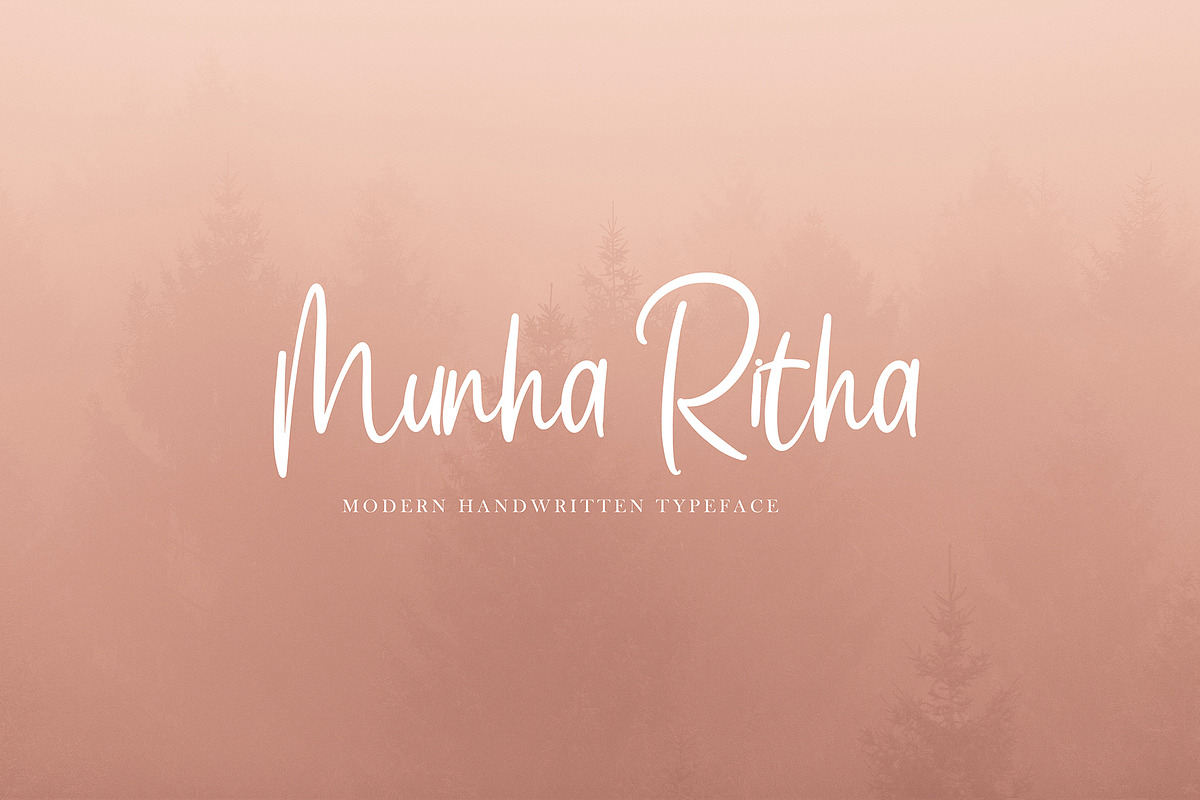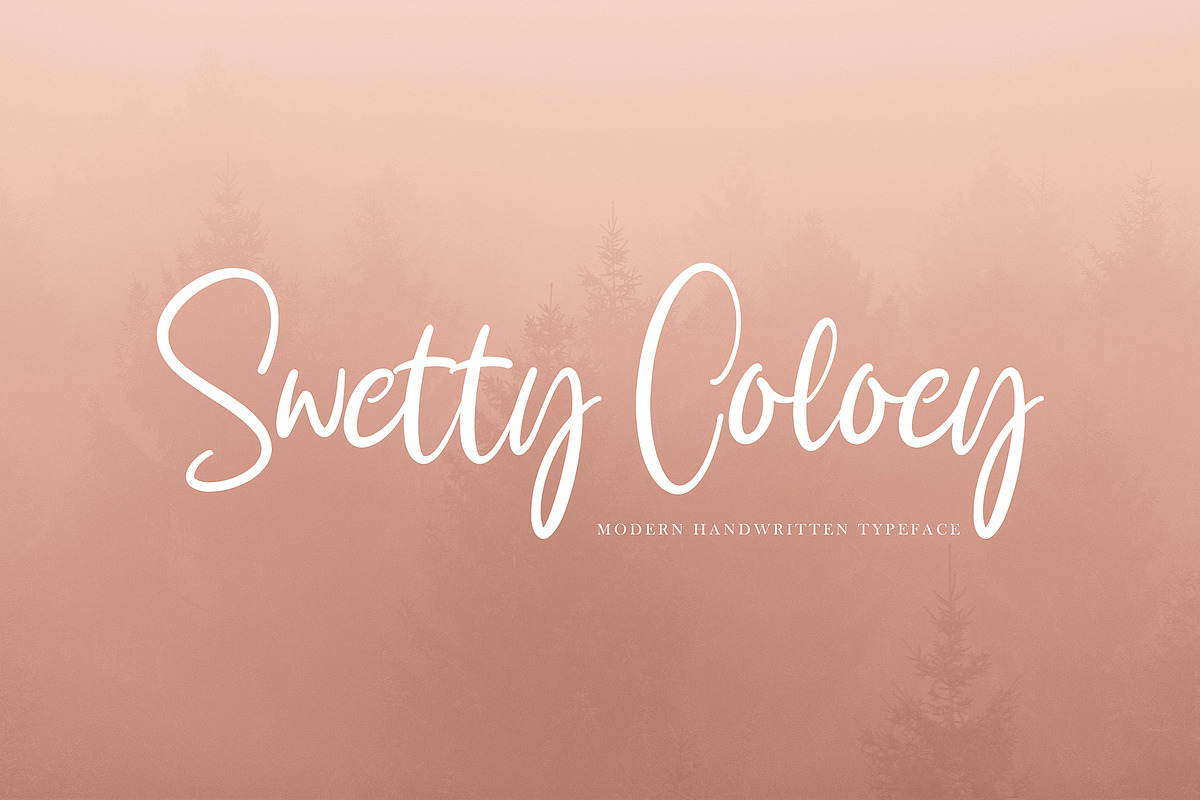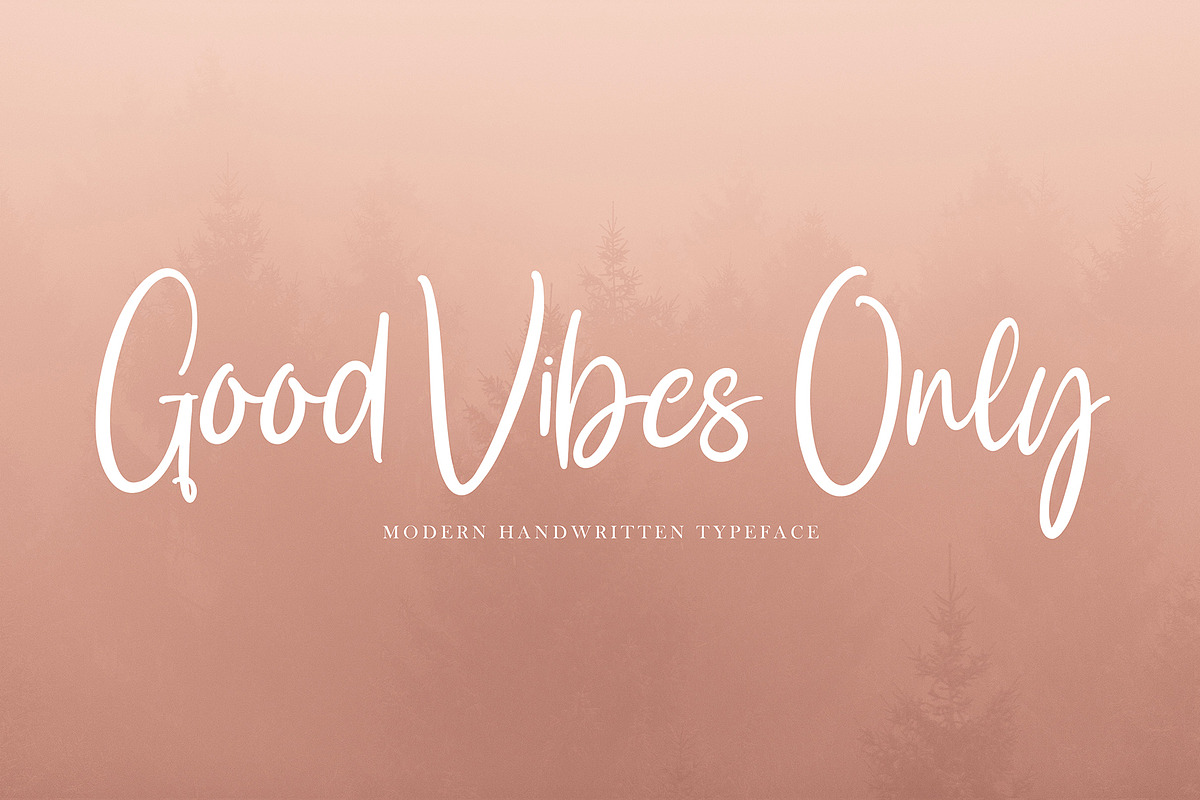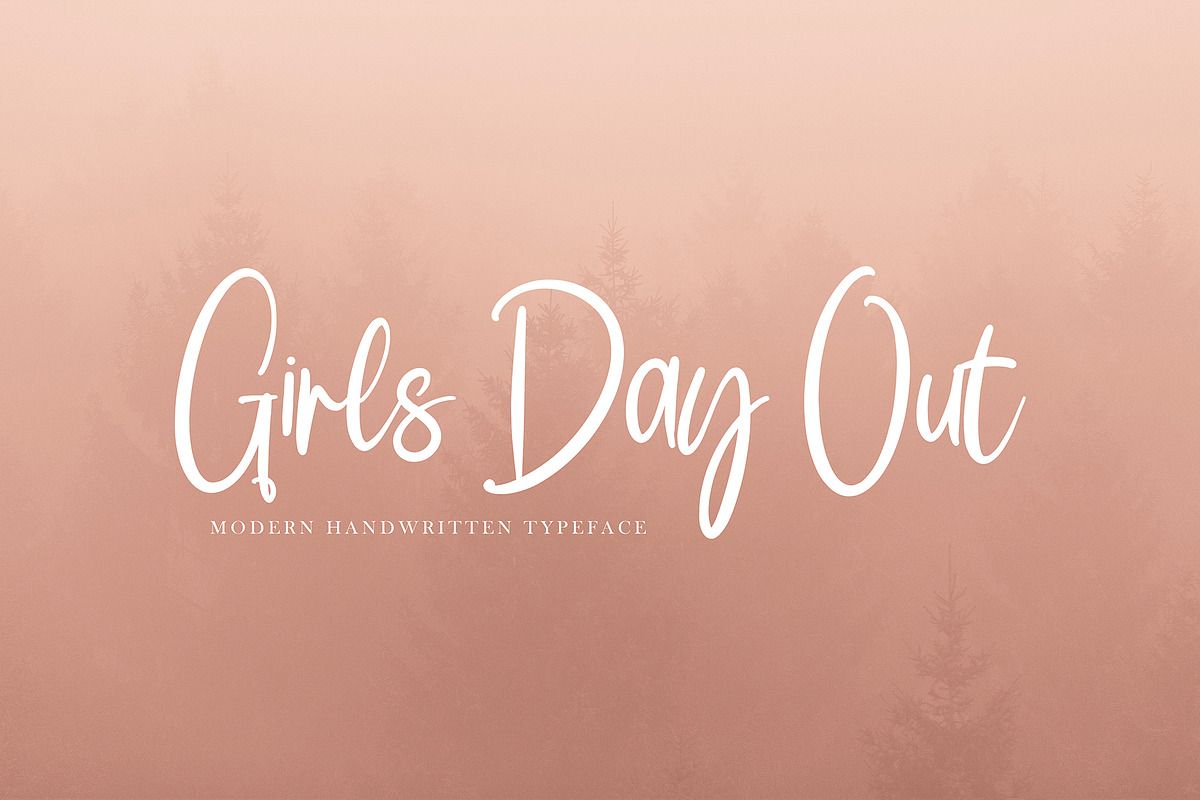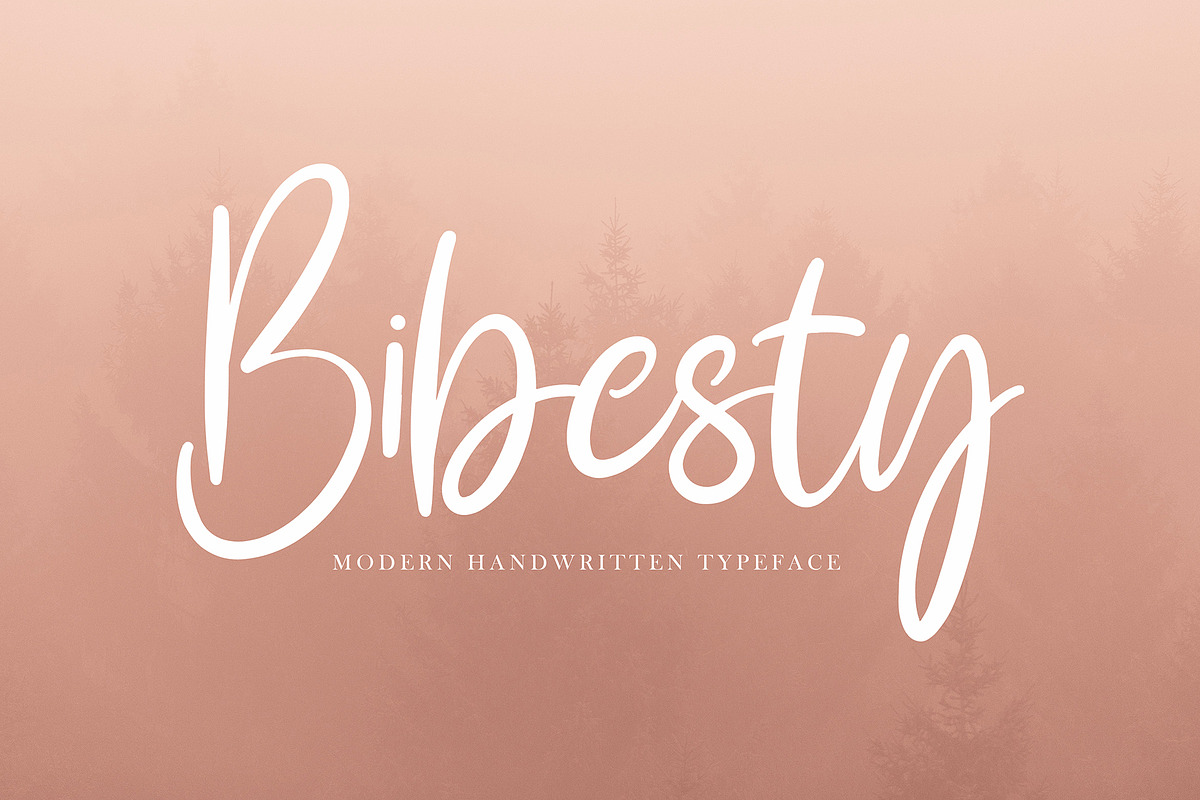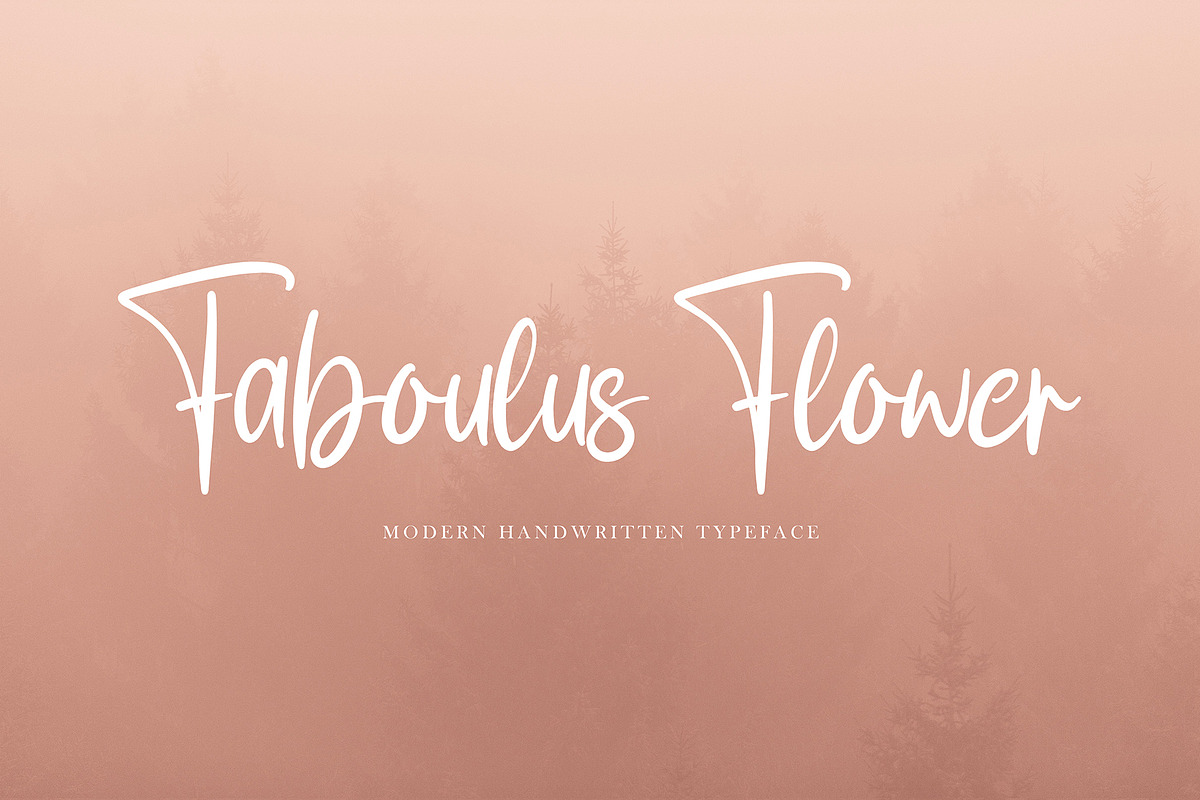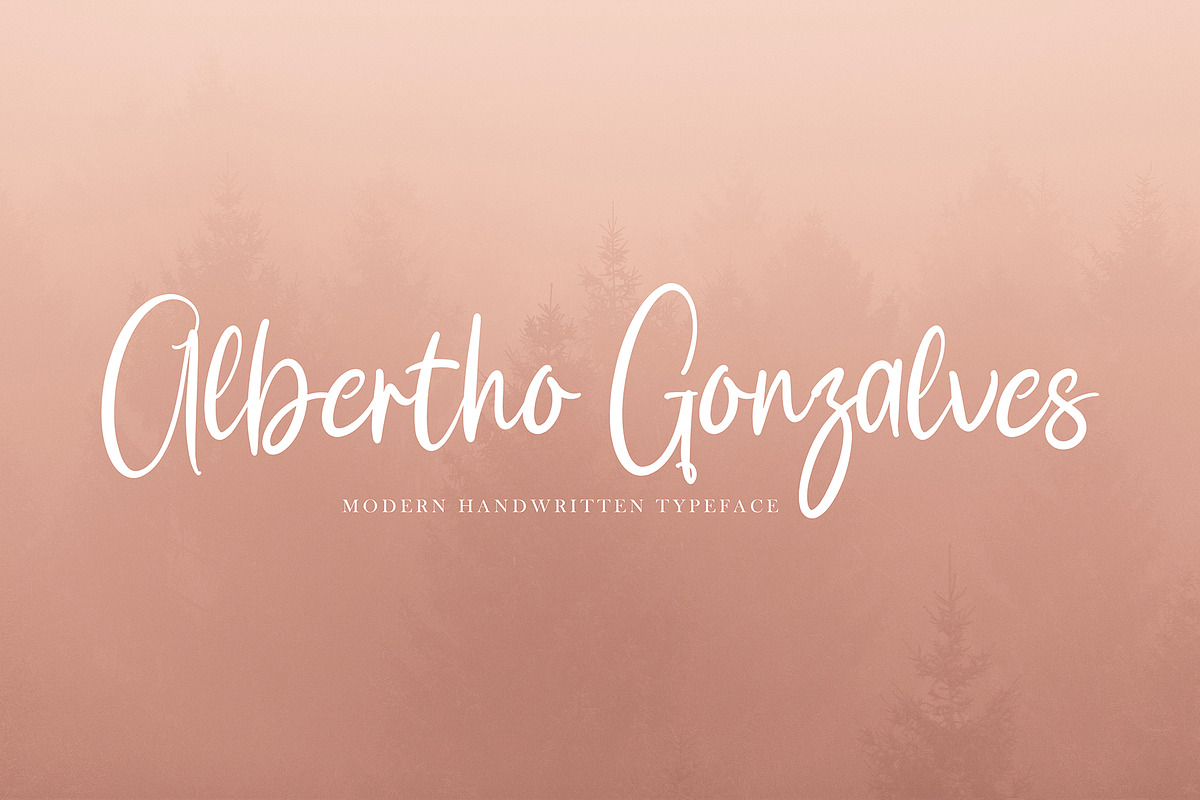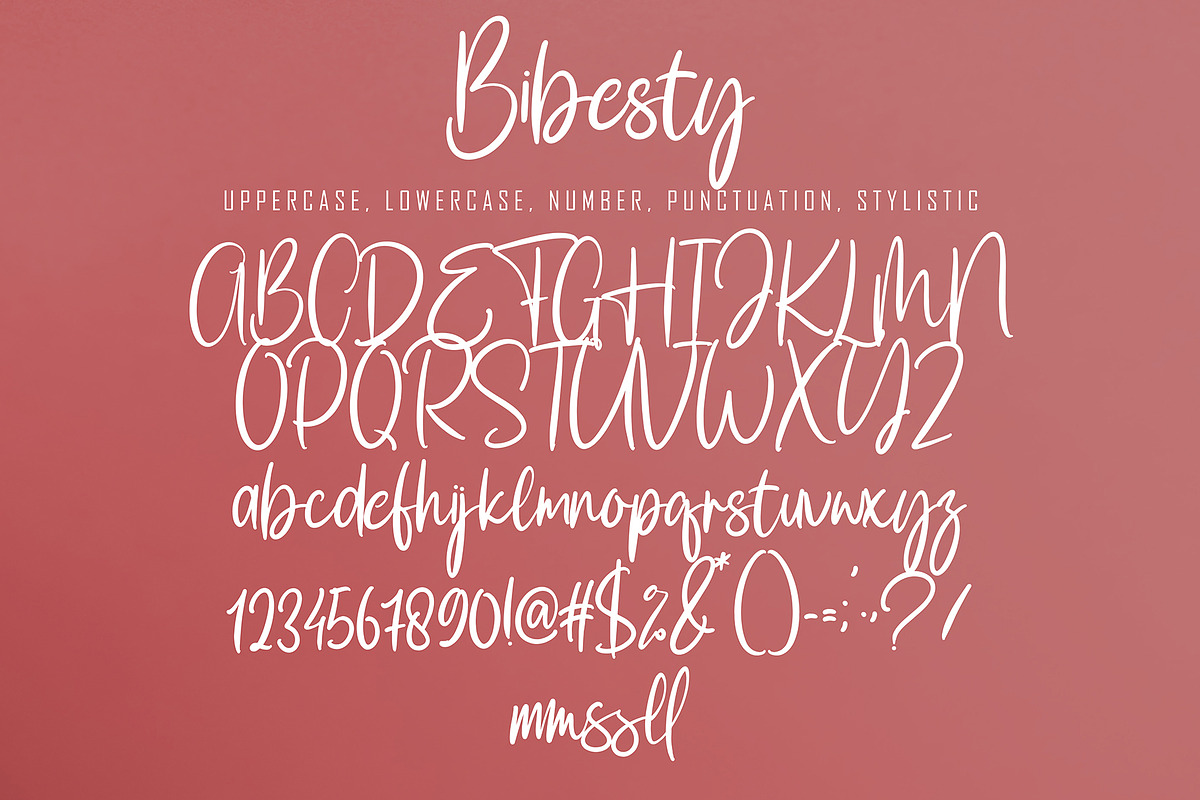
Bibesty
Bibesty font with new style, this font will perfect for many different project ex: quotes, logo, blog header, poster, banding, letter, invitation, stationery, etc...